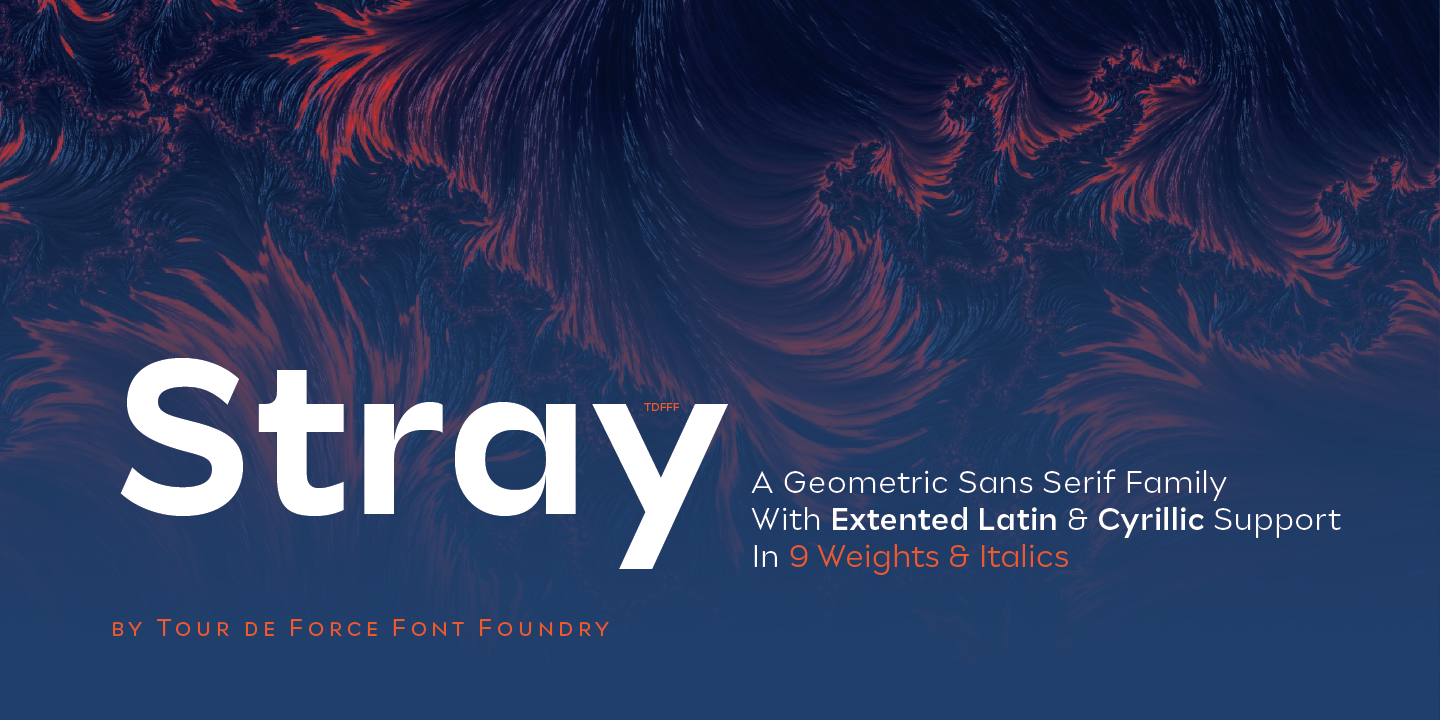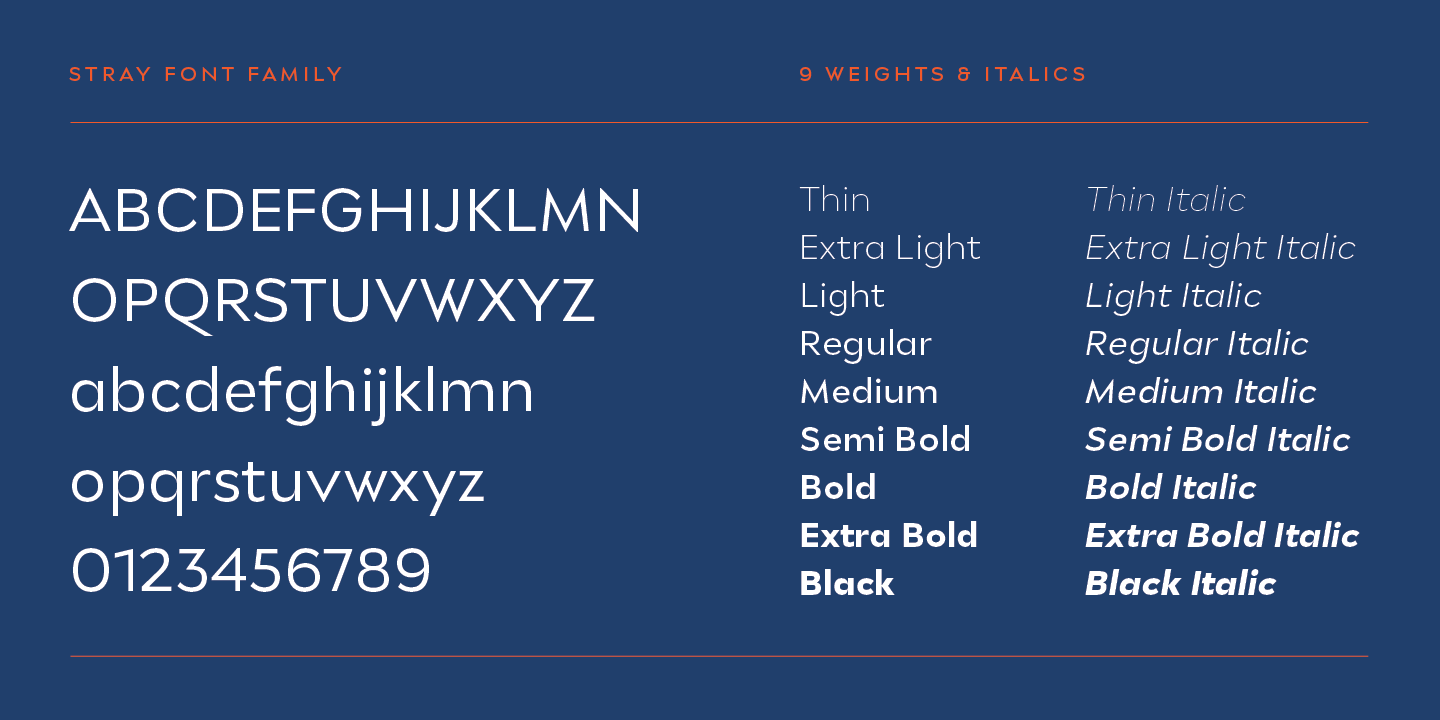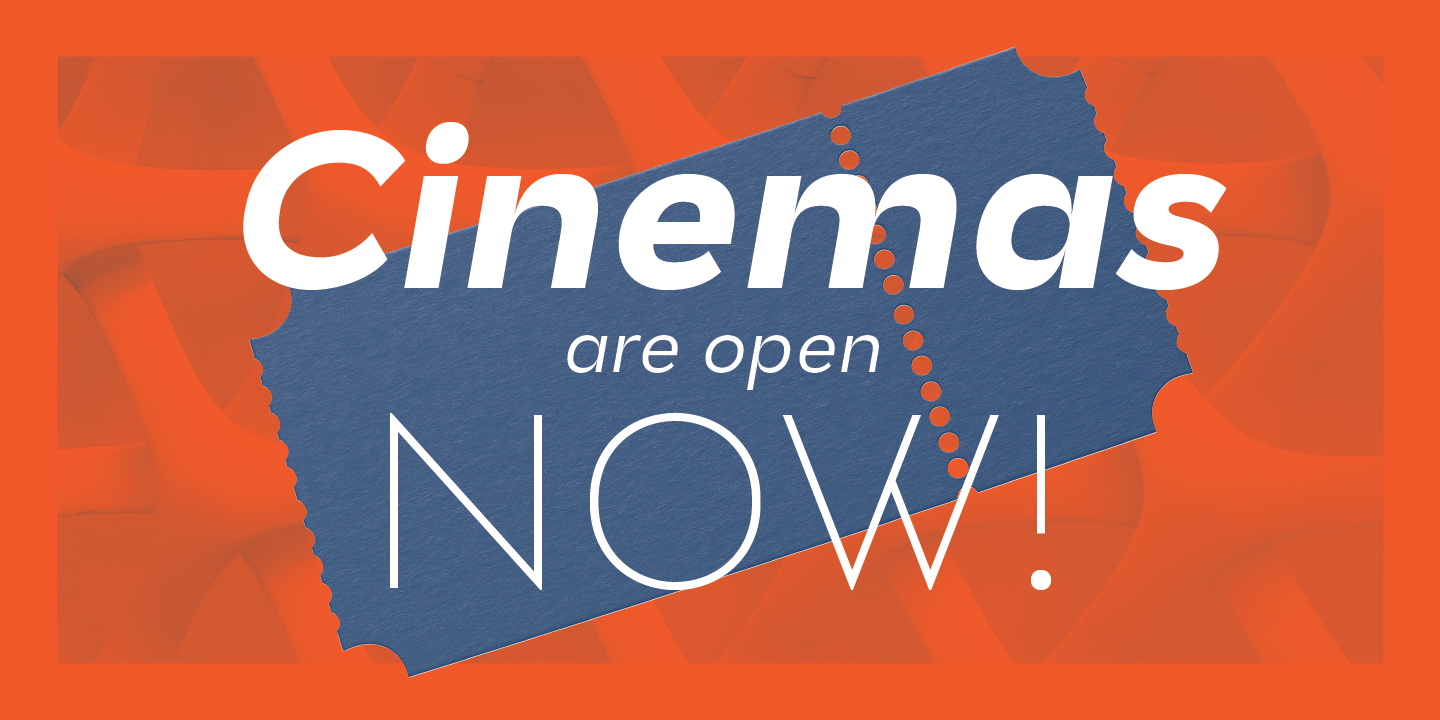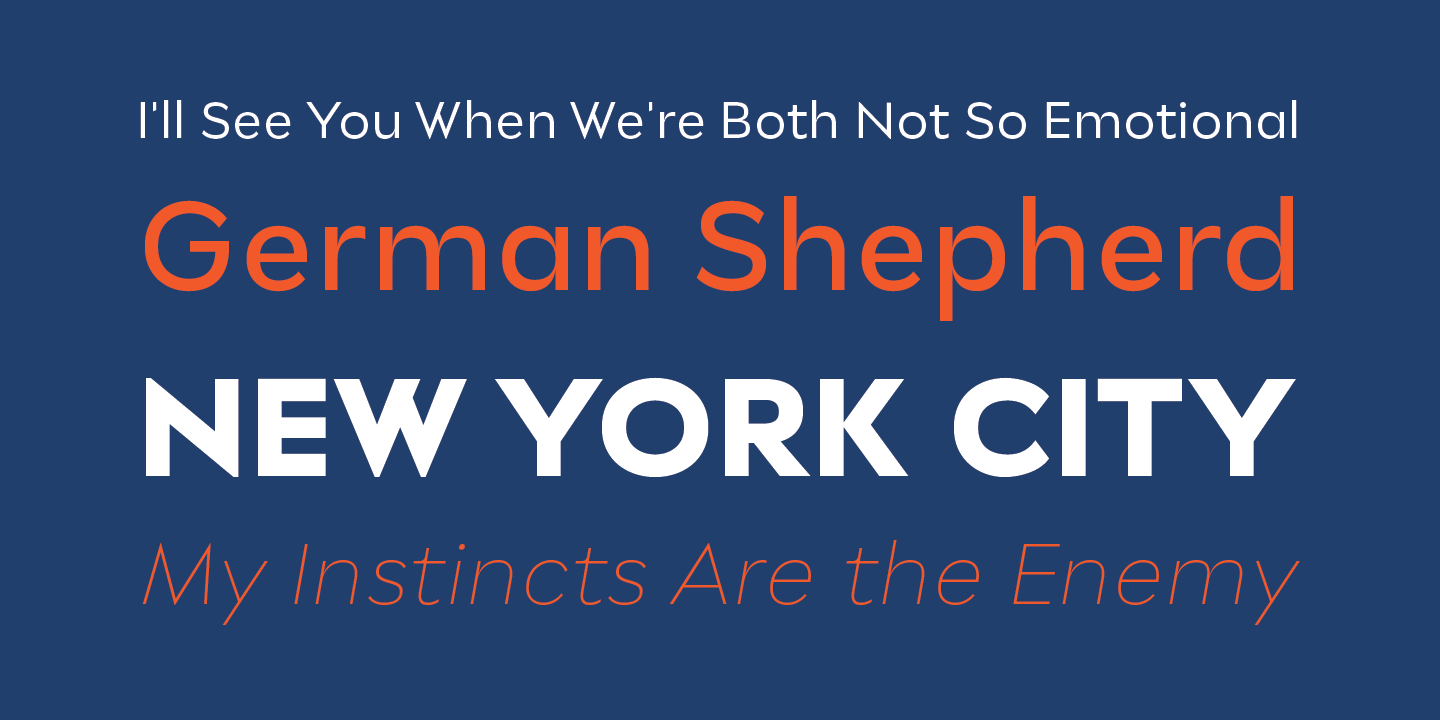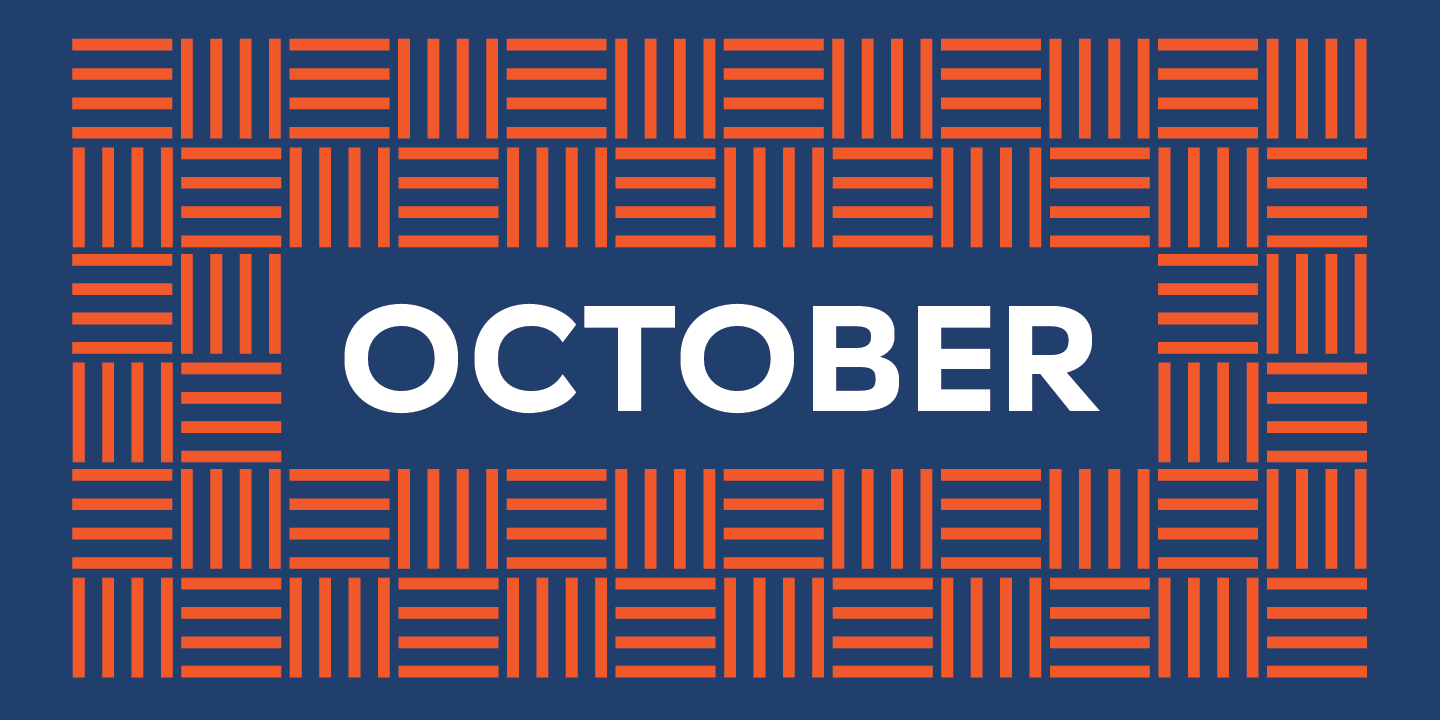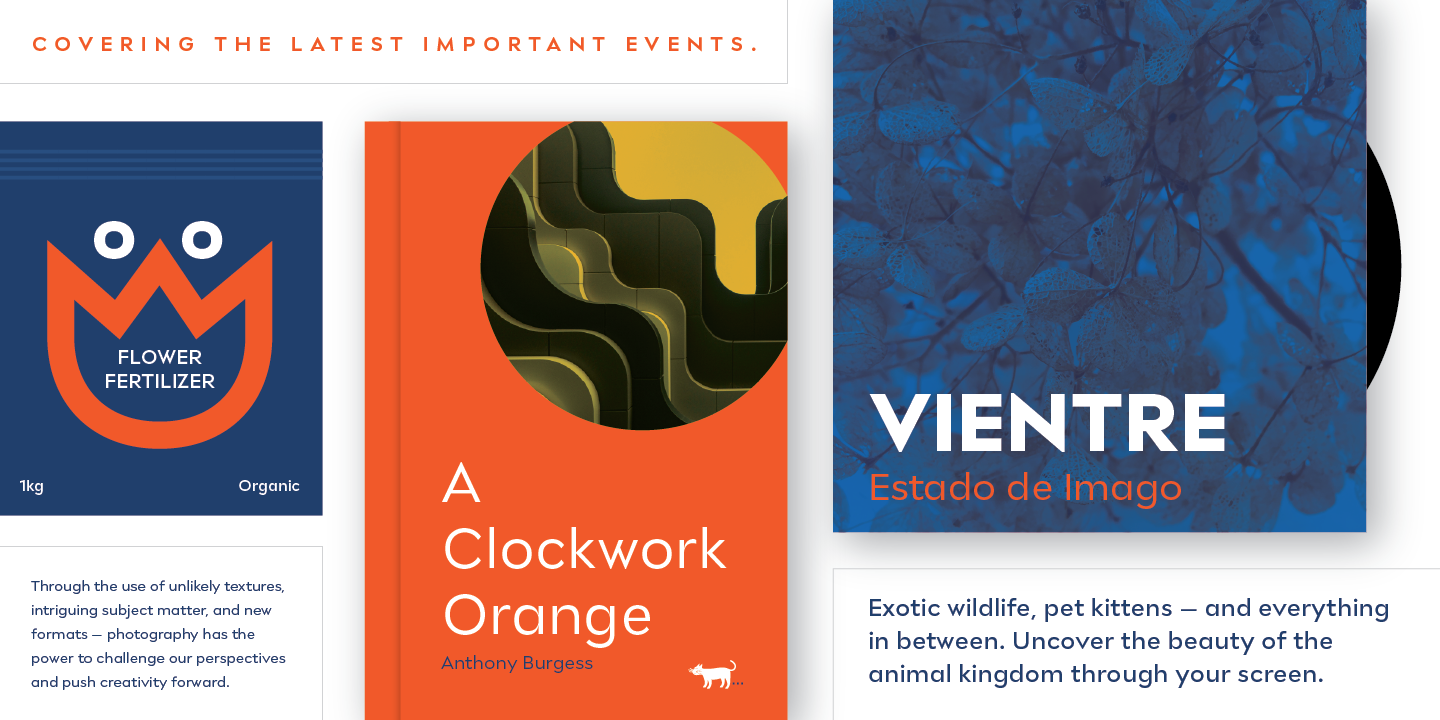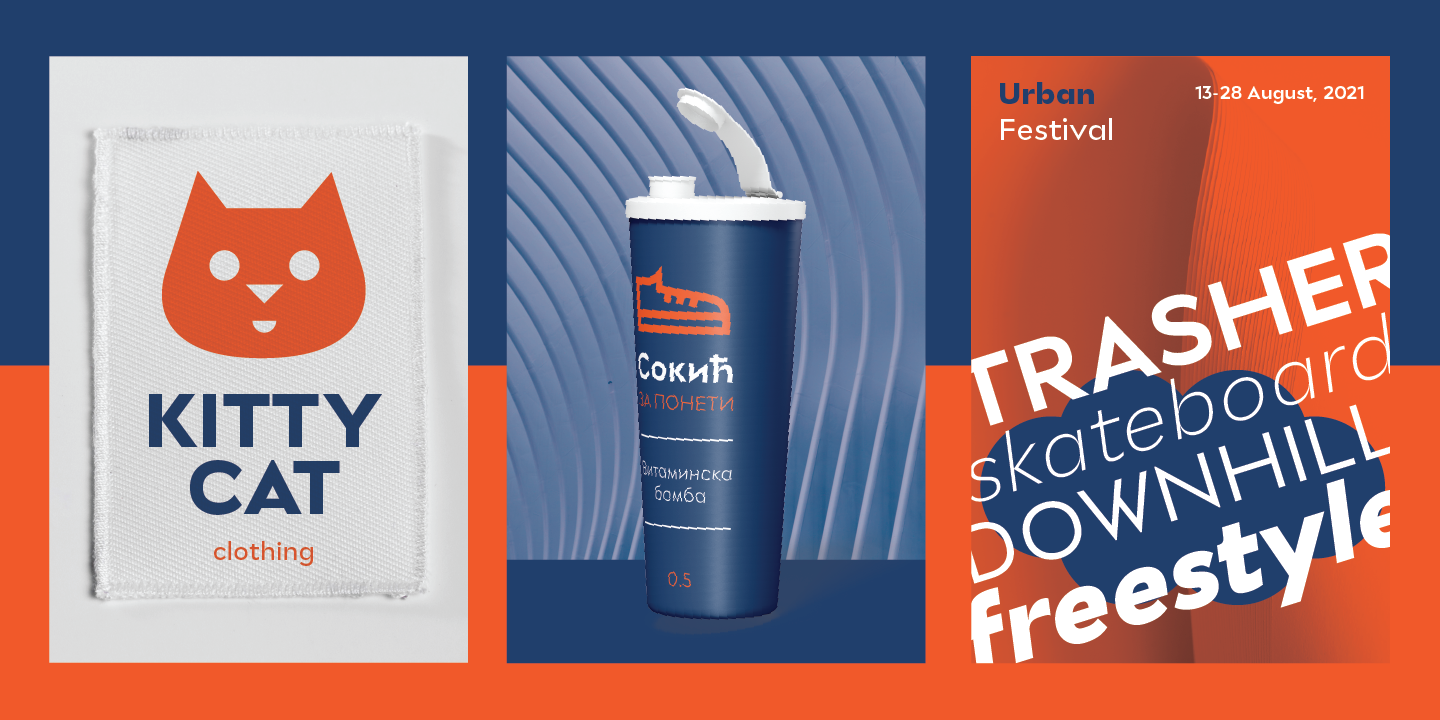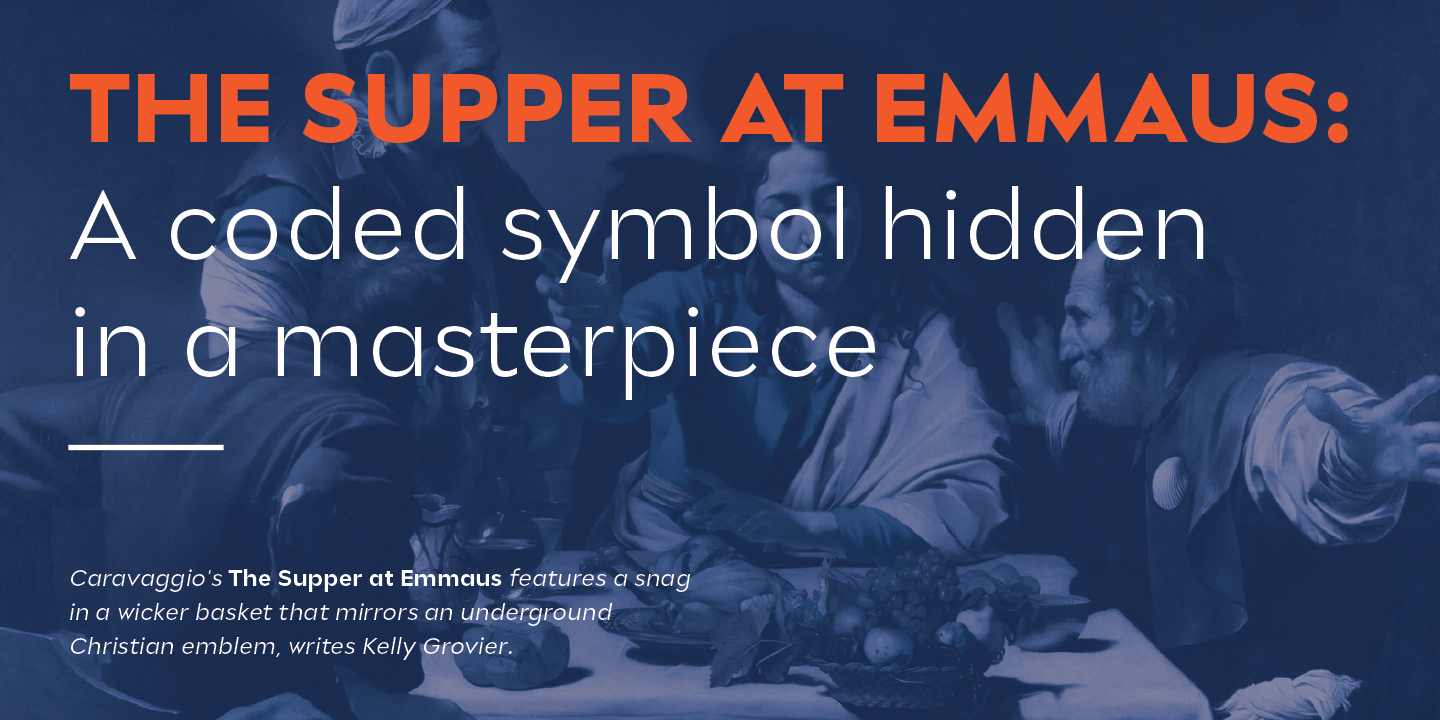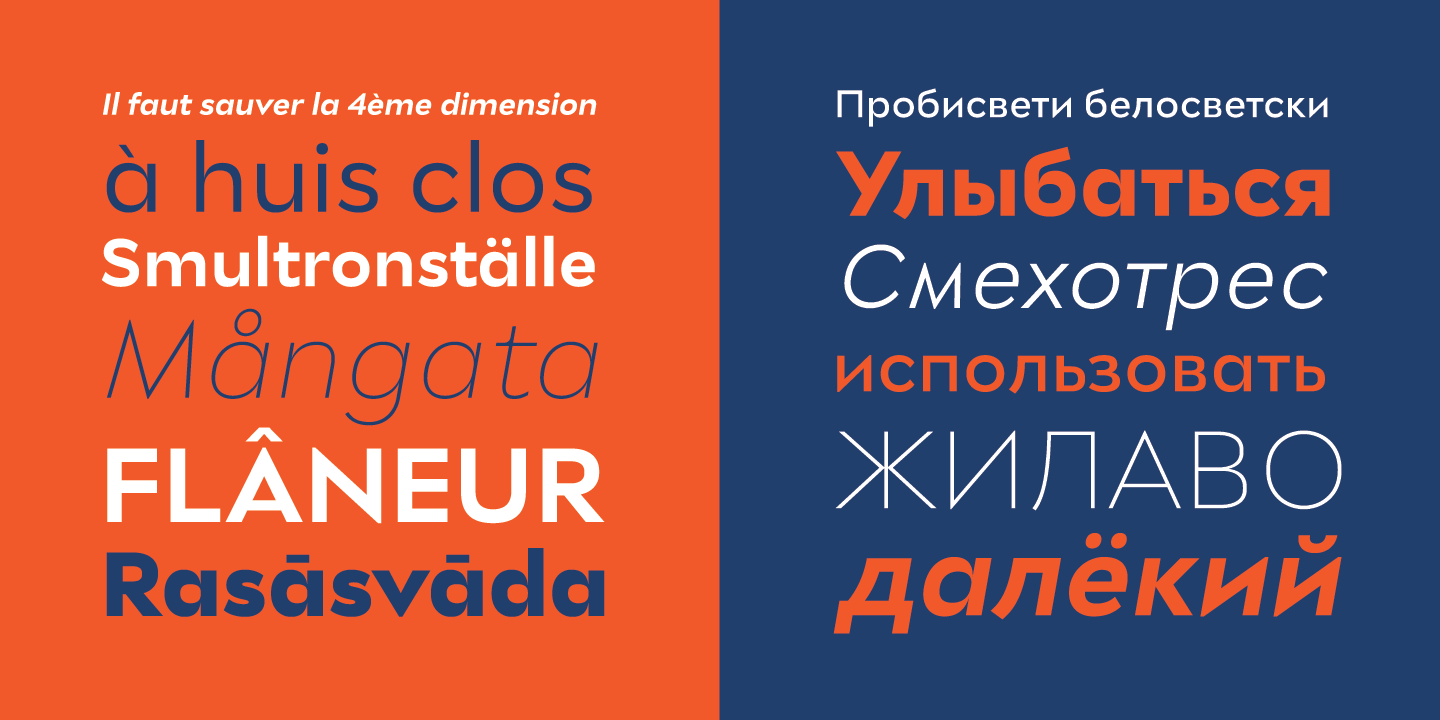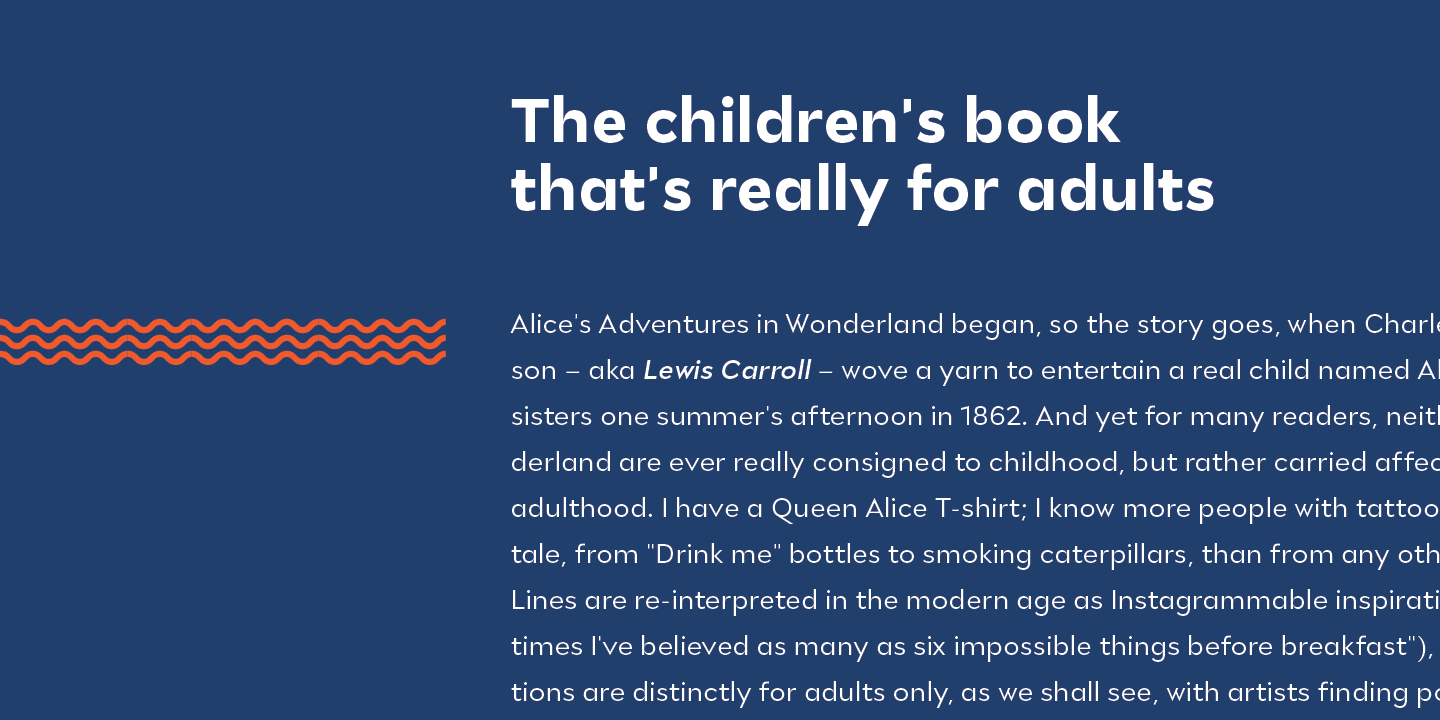
Stray might be the lonesome cowboy in this big odd world, but it's his just public façade.
Stray is handsome player that works well with any team or in any environment. He doesn't have a horse, but he can be the one, he can carry any weight. OK, let's talk serious now: Stray is distinctive geometric sans serif family in 9 weights and matching Italics. By it's design, Stray flirts with humanistic typefaces in some elements, while on the other side, we can see vintage letter forms as well. It is well balanced typeface, fully legible in any (reasonable) size, with power to present versatile tasks and situations. Specific joining of letter stem and bowl is one of design characteristics of Stray, so it is not just another geometric sans family, it really differs in it's own details.
Contains extended Latin character map support and Cyrillic (no localizations, sorry). As any serious working horse family, it is equipped with decent OpenType features like Small Caps (for basic Latin only), Fractions, Tabular Figures, Denominator, Numerator, Ordinals and Ligatures. It also comes with small interesting set of dingbats.
This Stray is not homeless, he just looks for the proper job :-)